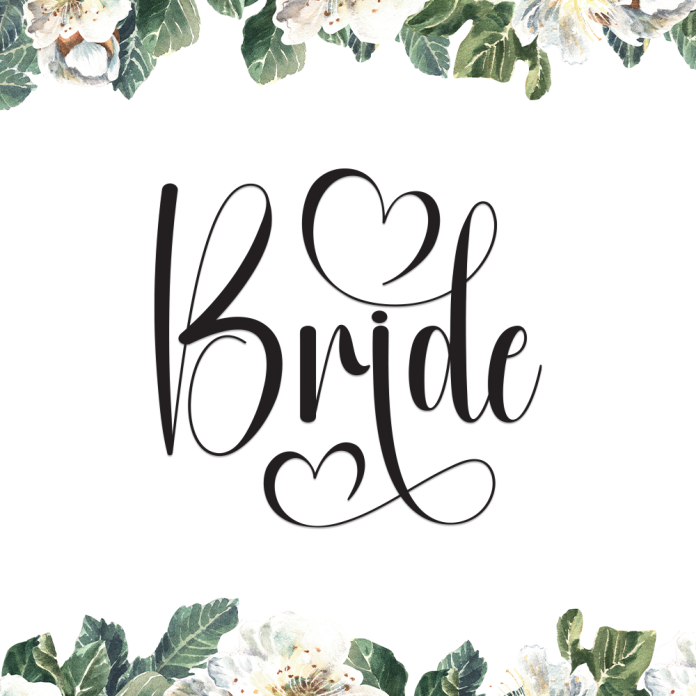
Bride is a charming handwritten font that radiates elegance and romance. Inspired by bridal calligraphy, this font combines delicate strokes with graceful flow, making it perfect for love-themed designs.
Whether you're designing wedding invitations, bridal shower cards, or romantic quotes, Bride adds a personal and heartfelt touch to every project.
Romantic and graceful handwritten style
Perfect for weddings, save-the-dates, and feminine branding
Soft curves and flowing lines for a delicate look
Celebrate love and elegance with Bride – the handwriting font made for special moments.